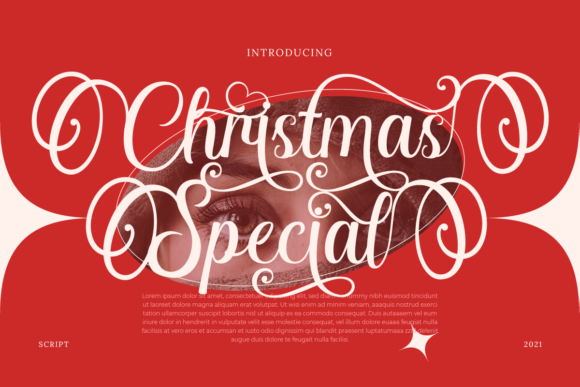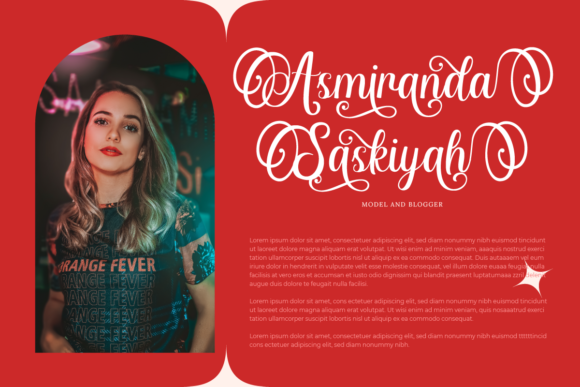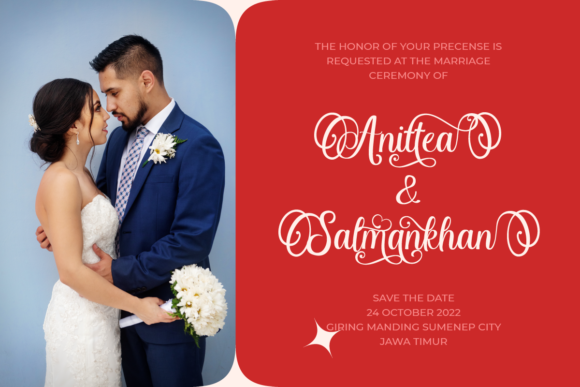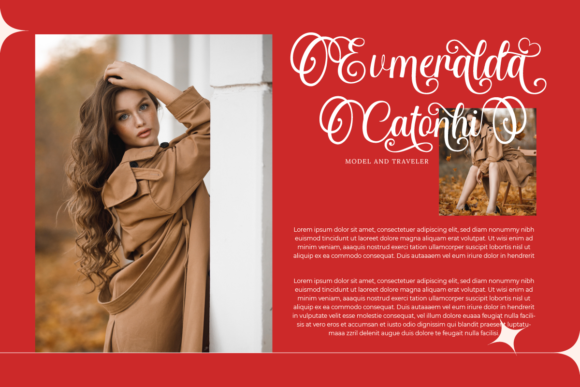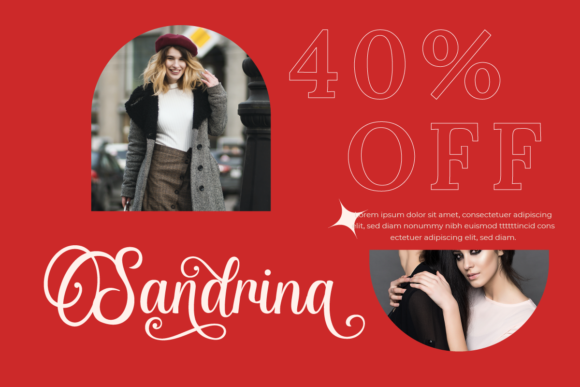
Christmas Special Font
About Christmas Special Font
Christmas Special is a highly detailed, elegant and romantic looking script font. This font is PUA encoded which means you can access all of the glyphs and swashes with ease!